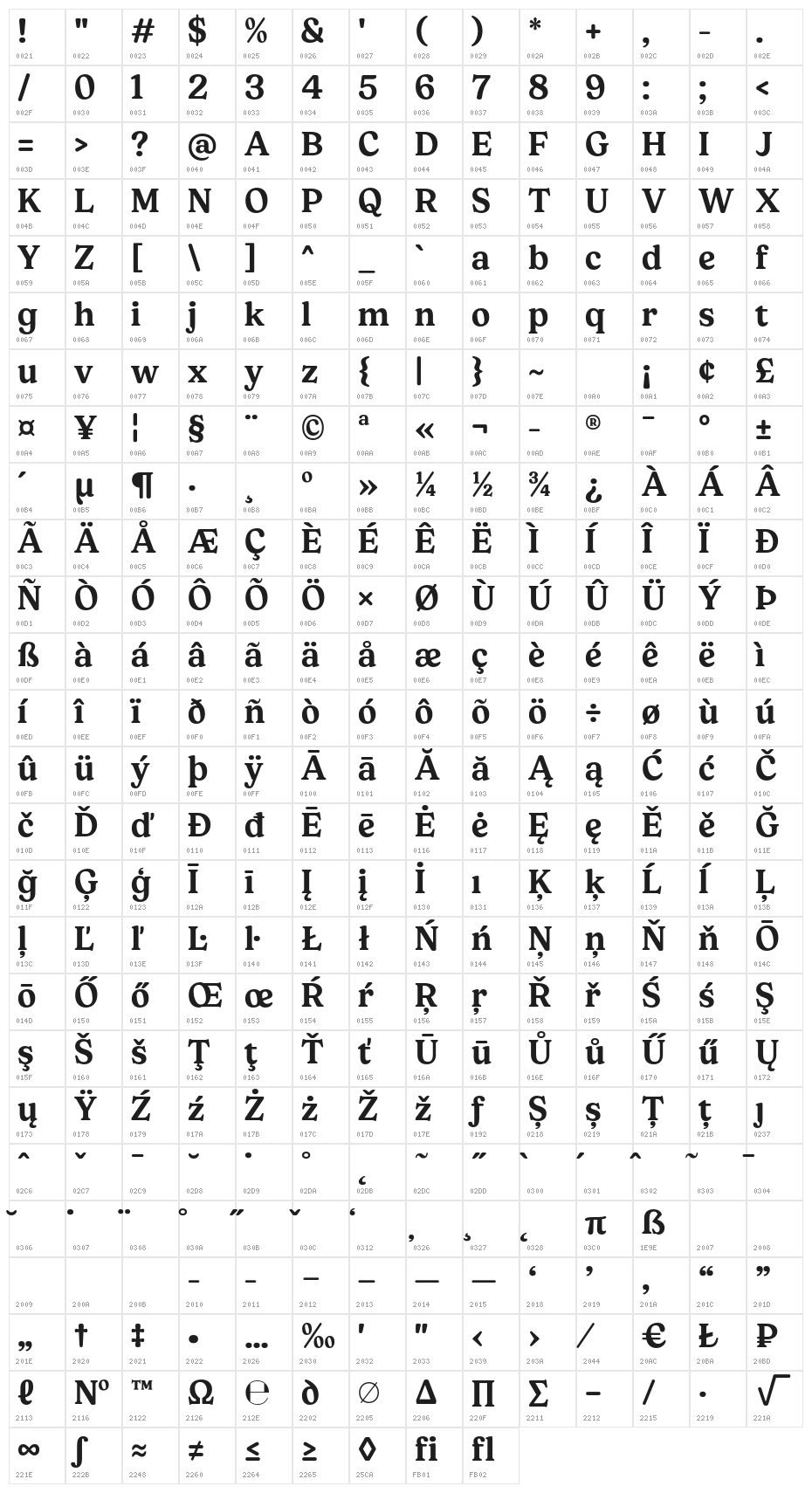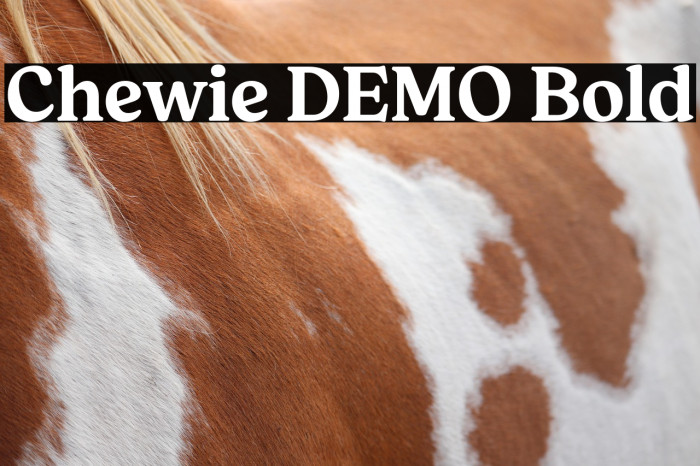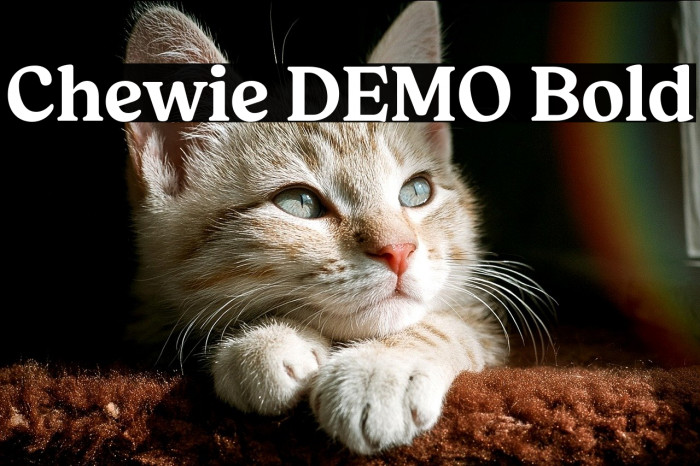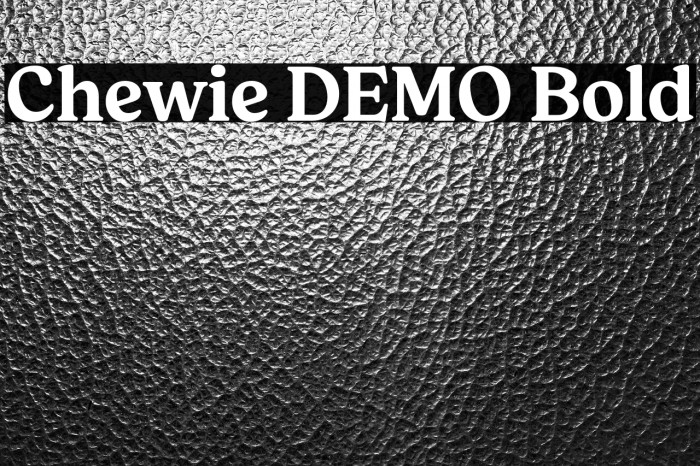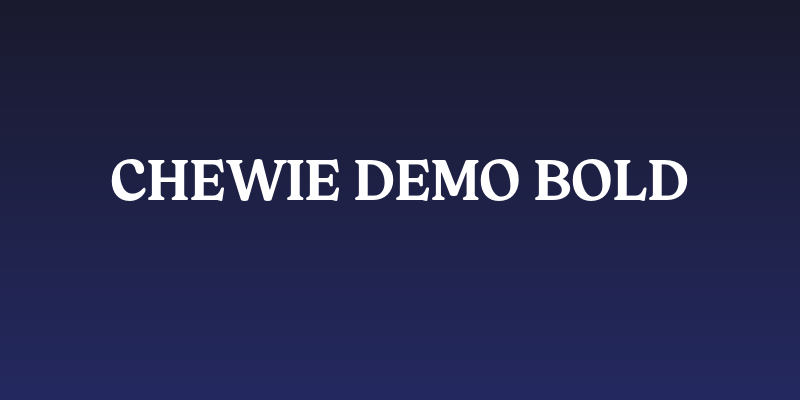
Chewie DEMO Bold Font
Chewie DEMO Bold Description
This font is a bold serif typeface that exudes a classic and authoritative presence. The characters are well-defined with thick strokes, providing a strong visual impact. The uppercase letters are robust and commanding, while the lowercase letters maintain a consistent weight, ensuring readability. The numerals are equally bold, making them suitable for attention-grabbing headlines or titles. Special characters are designed with the same boldness, ensuring uniformity across all glyphs. The overall design is traditional yet versatile, making it suitable for various formal and professional applications.